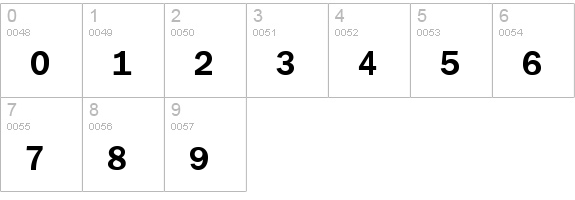
Franklin Gothic* Expert Medium SC Font Details
Franklin Gothic* Expert Medium SC is a balanced, medium-weight variant in the Franklin typeface family \xE2\x80\x94 well suited to sub-headlines, navigation, and balanced editorial work.
Franklin Gothic Expert Medium SC font is a versatile and elegant typeface that exudes sophistication and professionalism. Its carefully crafted letterforms make it ideal for a wide range of design projects, from corporate branding to editorial layouts. The medium weight strikes a perfect balance between authority and readability, making it a go-to choice for conveying important information with style. What sets Franklin Gothic Expert Medium SC font apart is its expertly designed small caps variant, which adds a touch of refinement to any text. Whether used for headlines, subheadings, or body text, this font commands attention and ensures a polished appearance. Best of all, Franklin Gothic Expert Medium SC font is available for free download at FontsMarket.com. Now you can elevate your designs with this premium typeface without breaking the bank. Don't miss out on the opportunity to add this timeless font to your collection and enhance your creative projects with its timeless appeal.